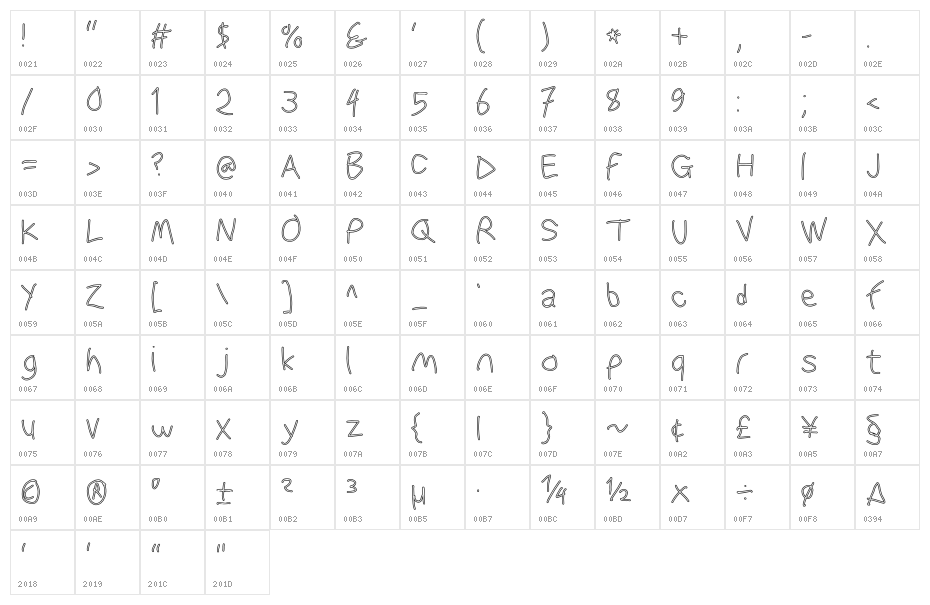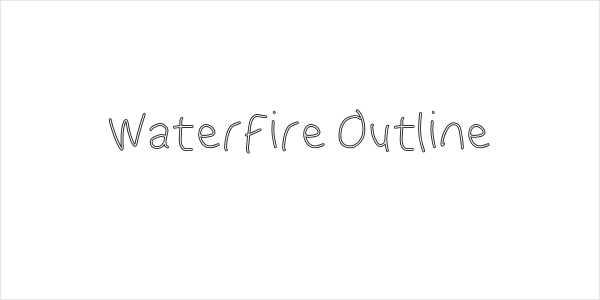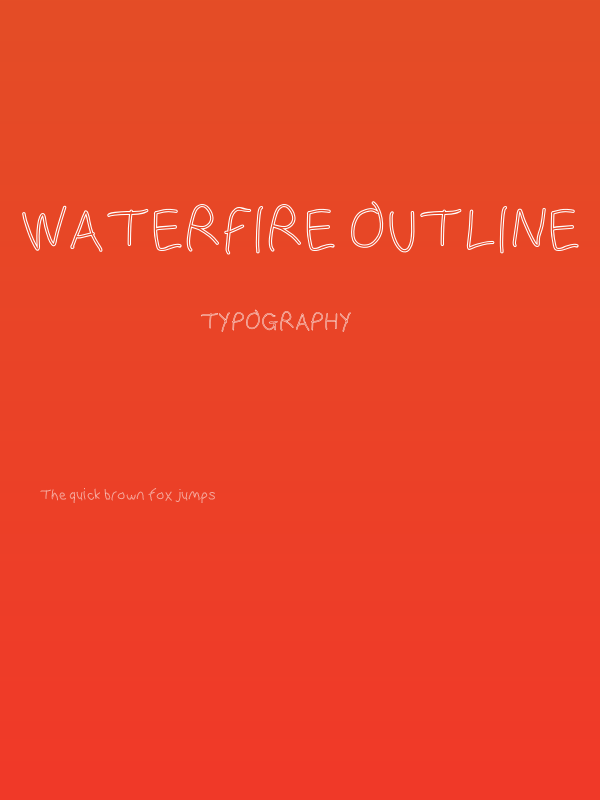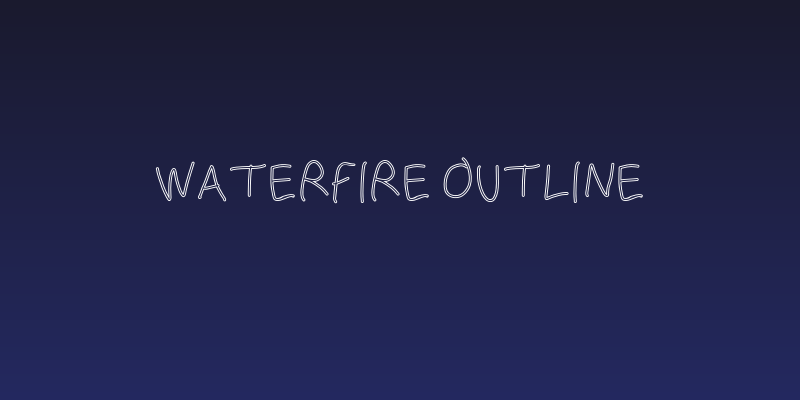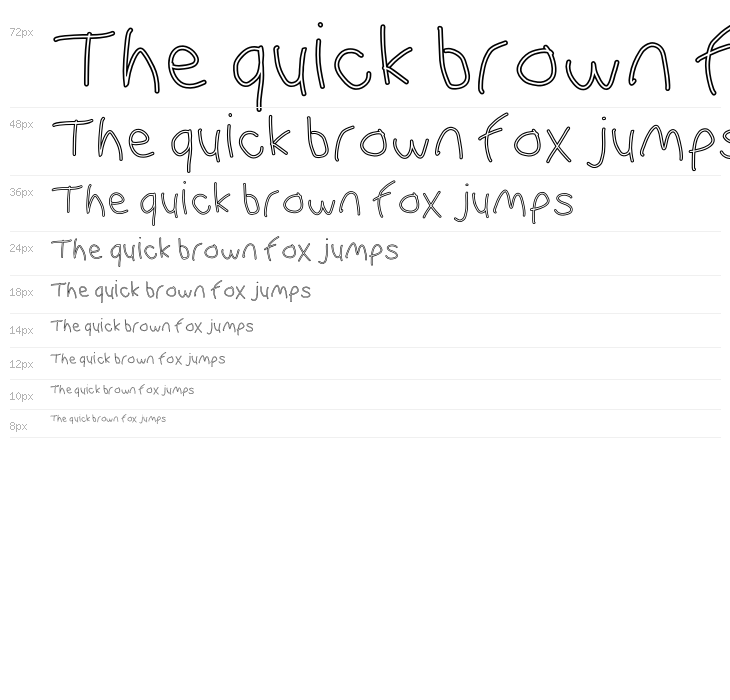
WaterFire Outline Font
WaterFire Outline Description
This playful and whimsical font features an outline style that gives it a hand-drawn, casual appearance. The characters are slightly irregular, adding to its charm and informal feel. Each letter is crafted with a consistent stroke width, creating a cohesive look across uppercase, lowercase, numerals, and special characters. The font's outline nature makes it stand out, ideal for projects that require a touch of creativity and fun. Its unique style is perfect for designs that aim to be approachable and engaging, such as children's books, playful branding, or artistic posters.
Overall StyleWhimsical, Casual, Playful
Proposed ProjectsIdeal for children's books, playful branding, artistic posters, and creative invitations.